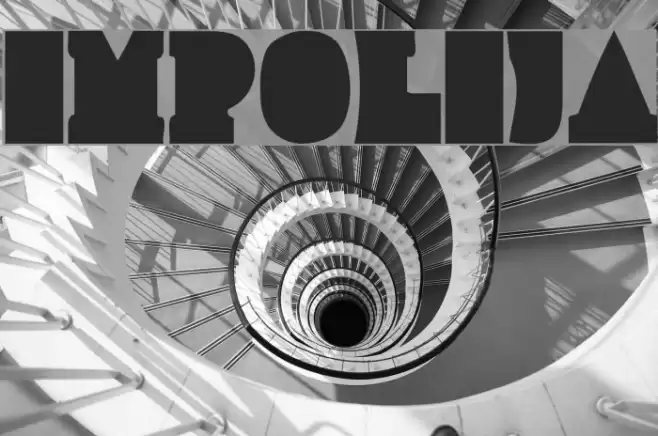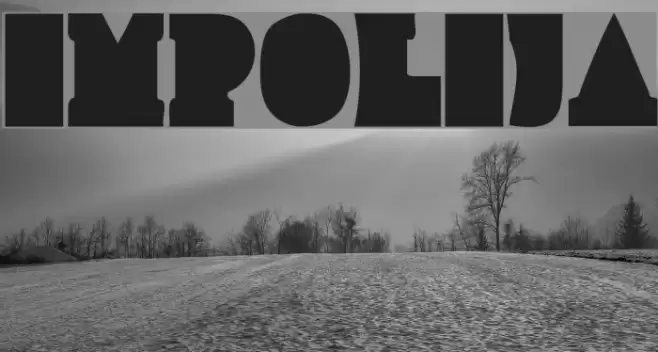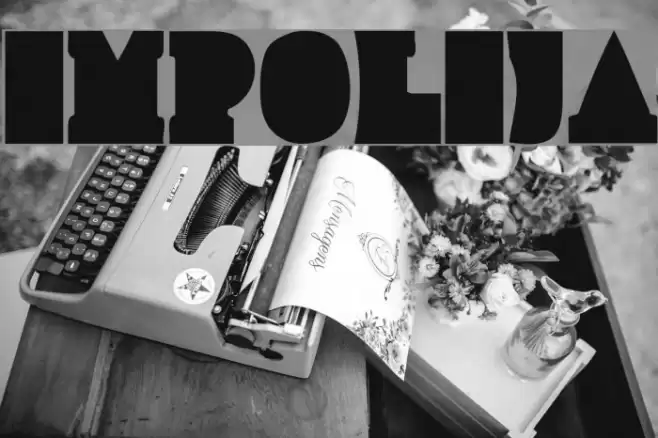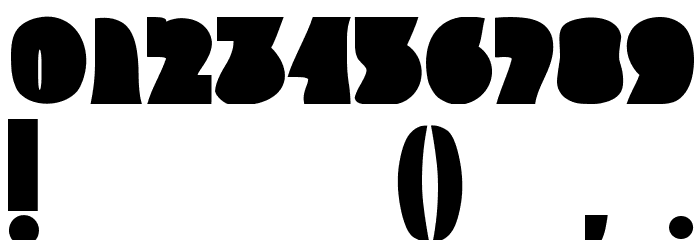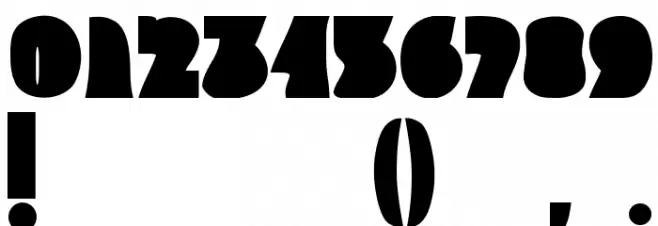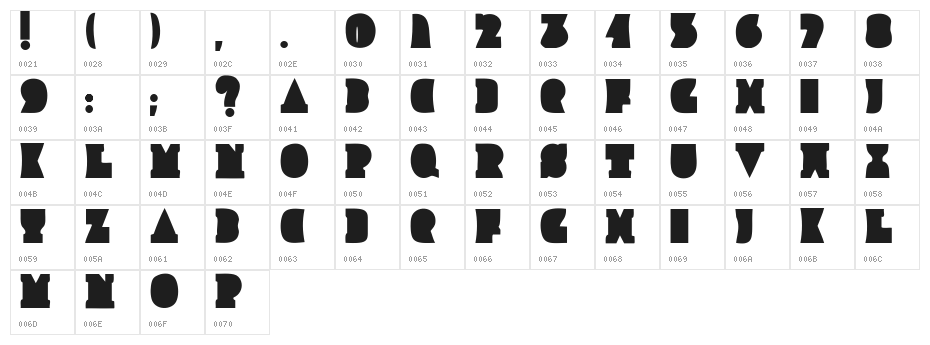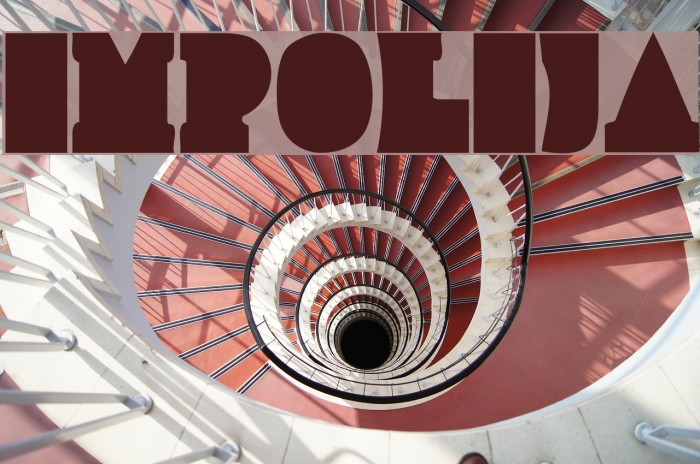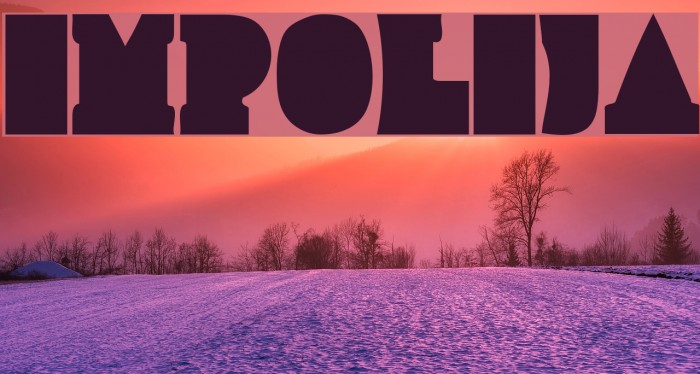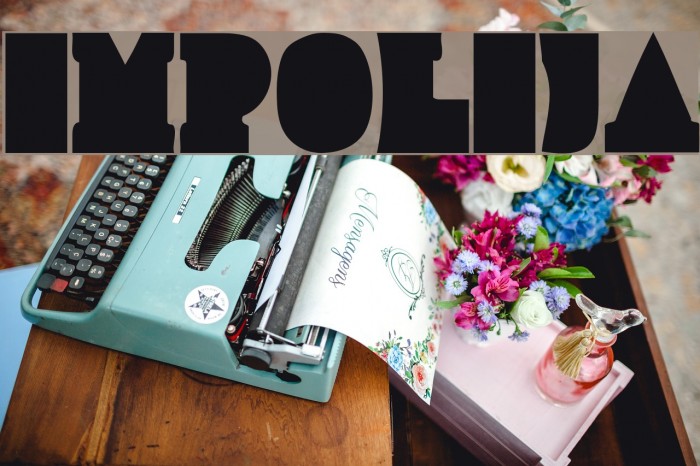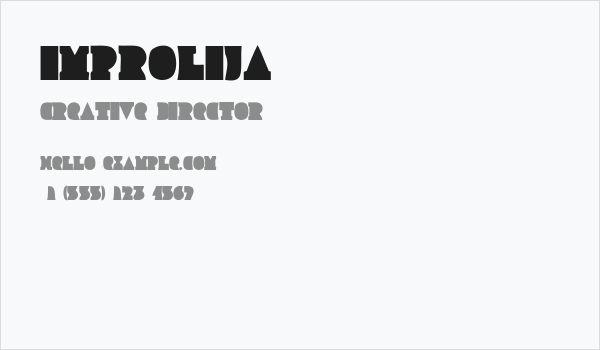
Improlija Font
Improlija Description
This font features a bold and striking design with heavy, block-like characters. The letters are constructed with thick strokes and minimal spacing, creating a compact and impactful appearance. The geometric shapes and sharp angles give it a modern and edgy feel, making it stand out in any design. Its unique style is characterized by a strong presence and a sense of solidity, making it ideal for attention-grabbing headlines or logos. The font's boldness is further emphasized by its uniform stroke width, which maintains consistency across all characters. The overall design is both artistic and functional, suitable for projects that require a bold statement.
A bold, geometric font with thick strokes and minimal spacing, perfect for impactful designs.
- Proposed Projects: Ideal for posters, logos, branding materials, and any project that requires a strong visual impact.
- Character Spacing: Tight